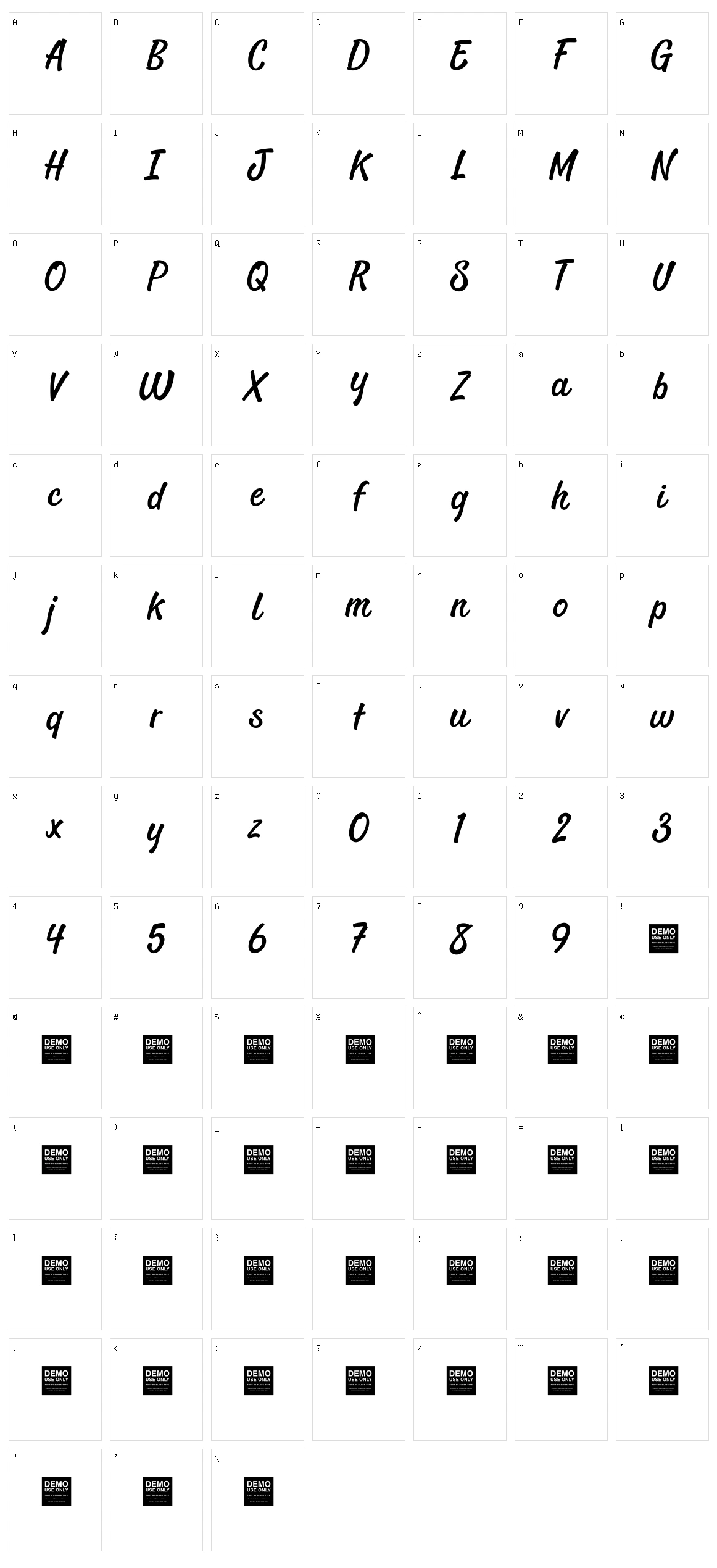
The free font Sixty Nine is carefully designed by BLKBK Fonts, showcasing a thoughtful balance of creativity and usability and falls under the Old-School font style. When you download the ZIP file, it contains only 24.17 KB of font files, making it lightweight and quick to download. Please review the license details below to understand permitted usage and distribution rights. If license information is not available, we recommend using this font for personal projects only or contacting the author directly for commercial usage permissions.